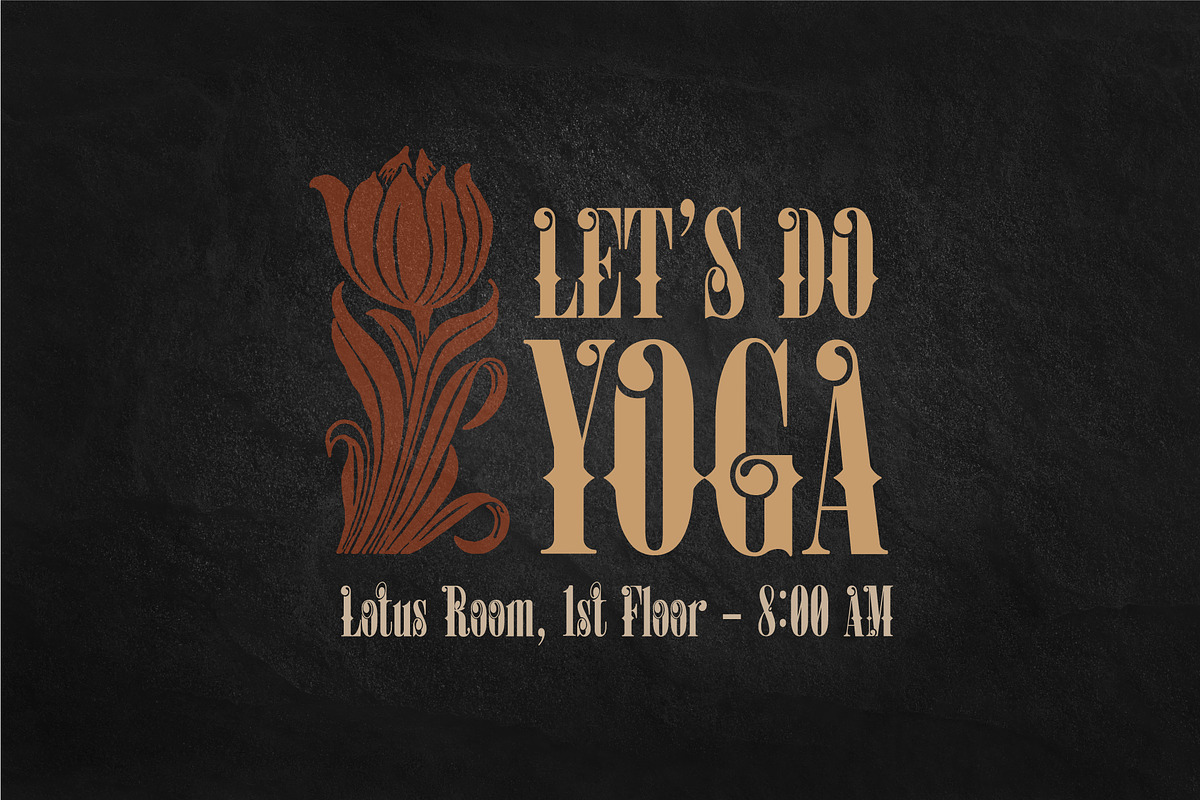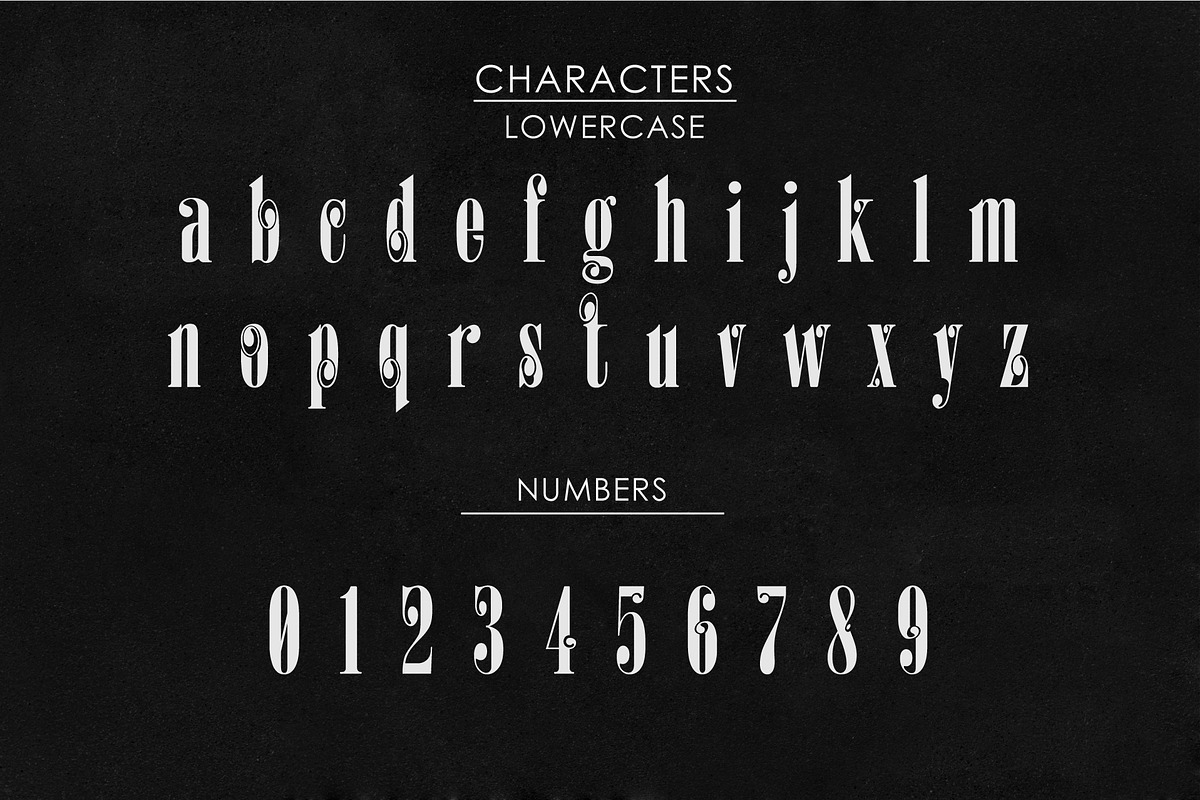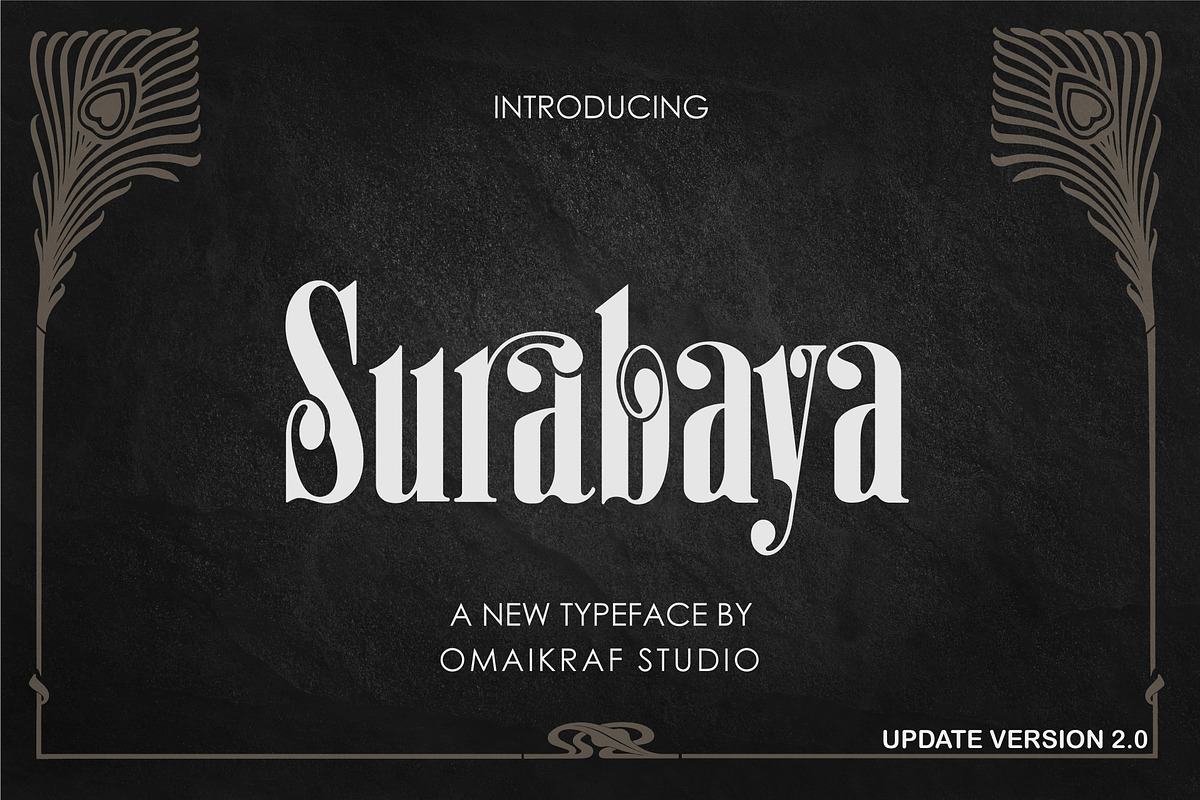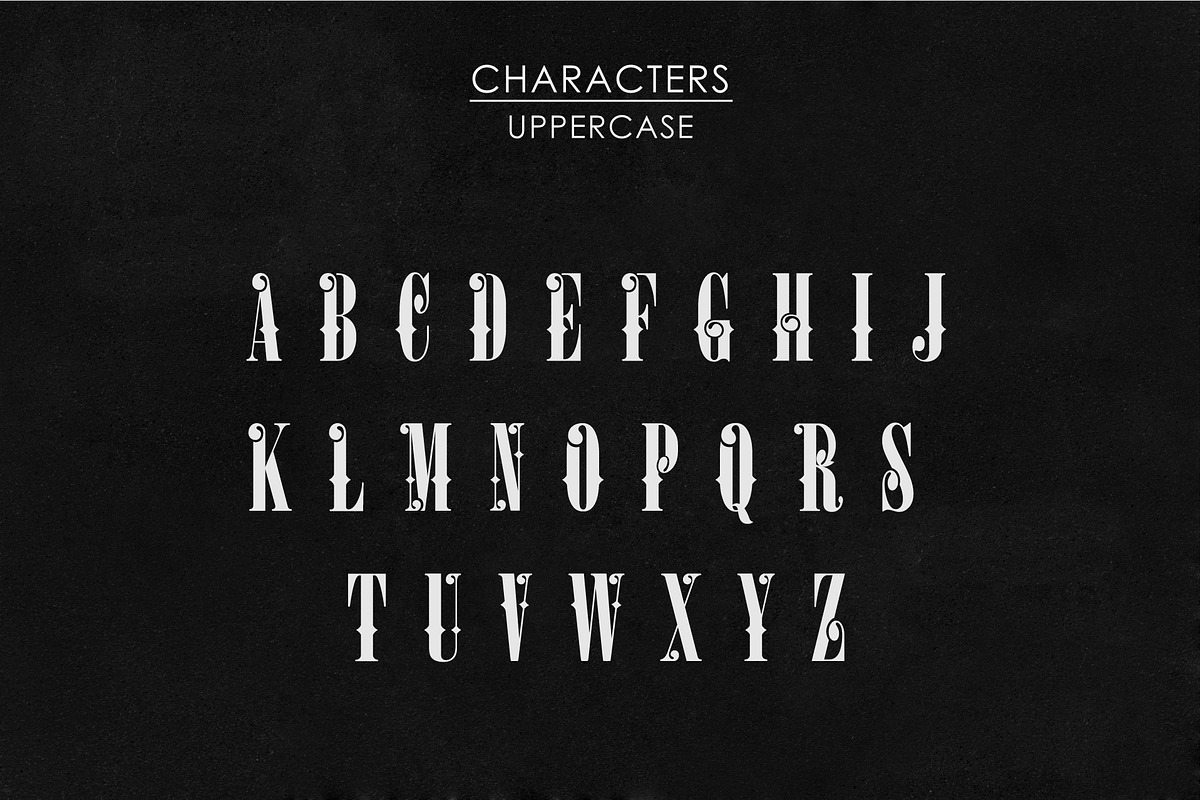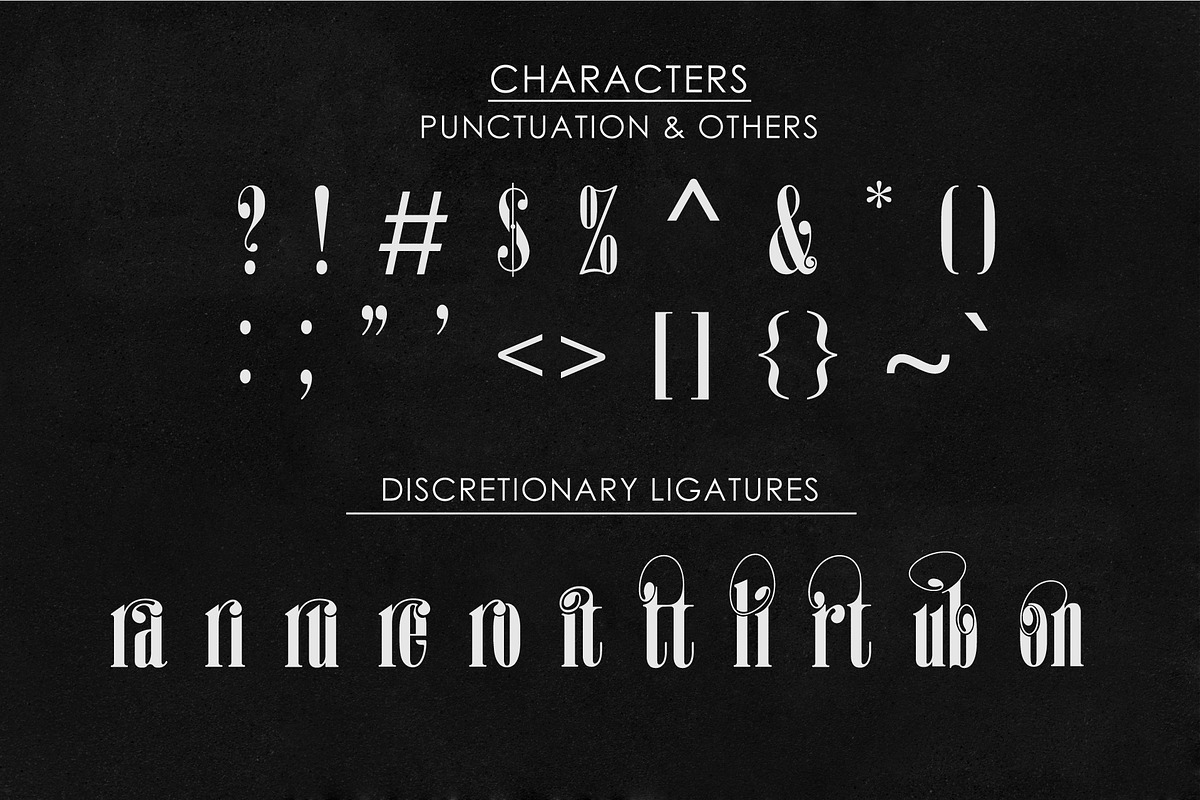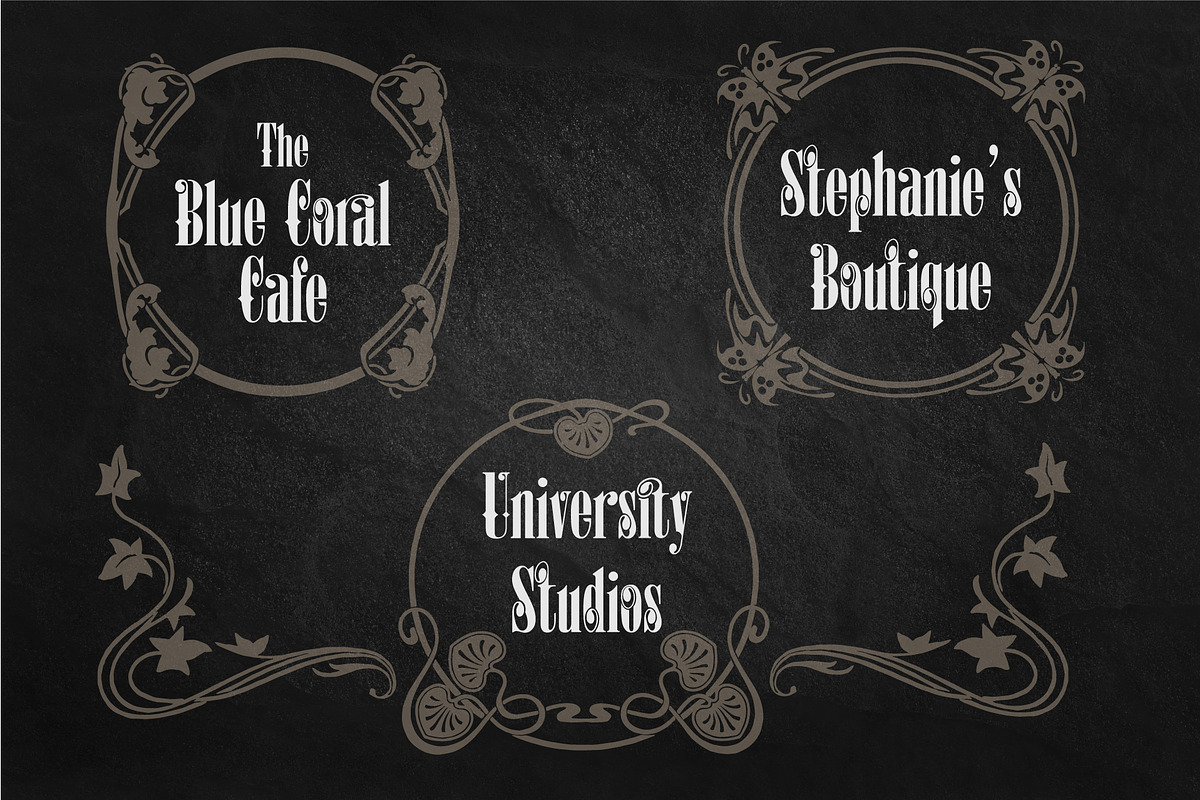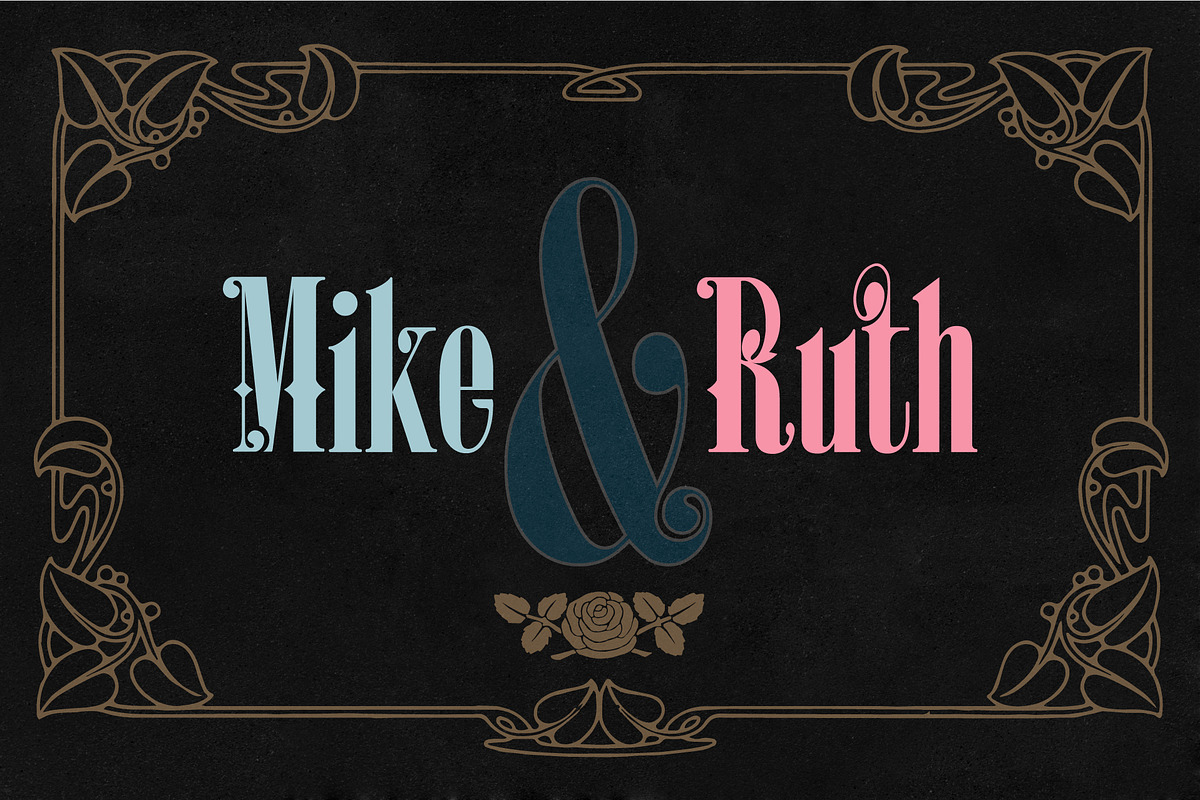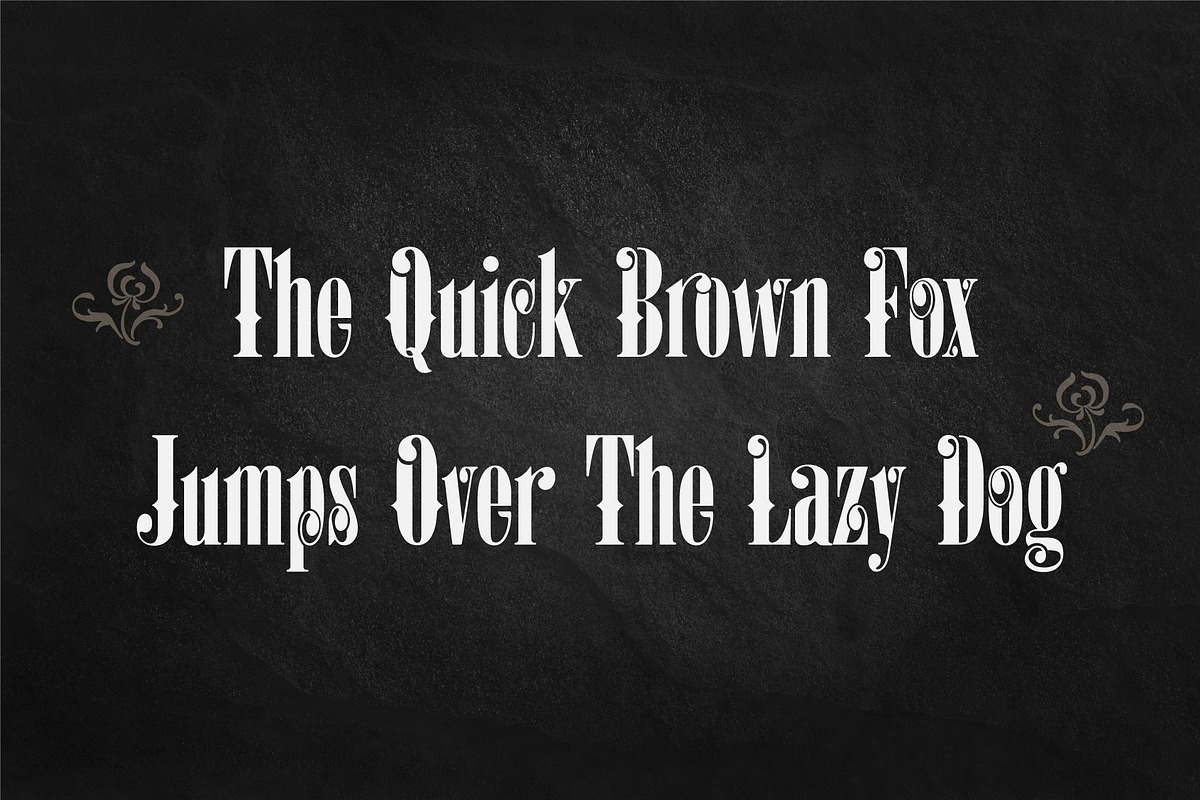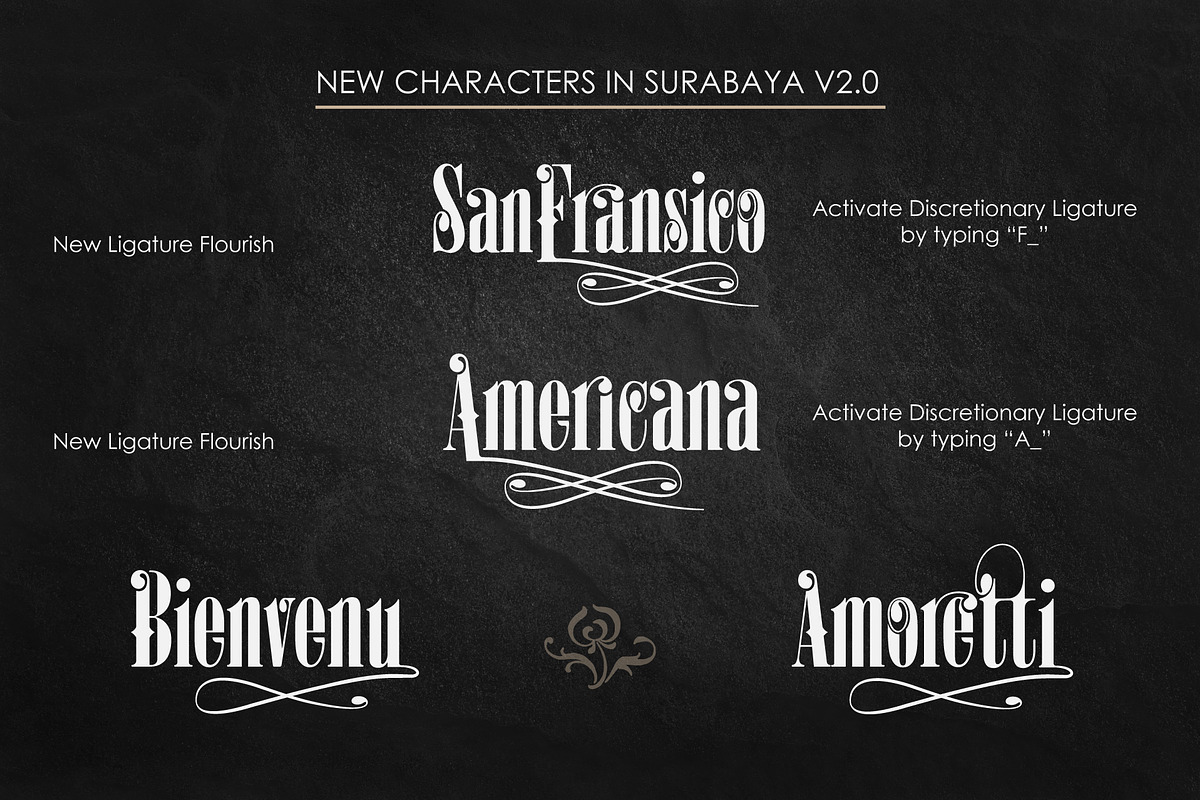
Surabaya | Retroclassic Fonts
Hi! Surabaya is the kind of typeface that is built to bring the classic nobility in a modern lifestyle. Each of its characters is formed with curved shape like floral ornaments, which is derived from the architectural concept of classical style.
This font is suitable for branding, films, letterings, occasions, and other related activities. In this updated version of Surabaya, we have also added many Discretionary Ligatures and Alternate Flourishy Characters.